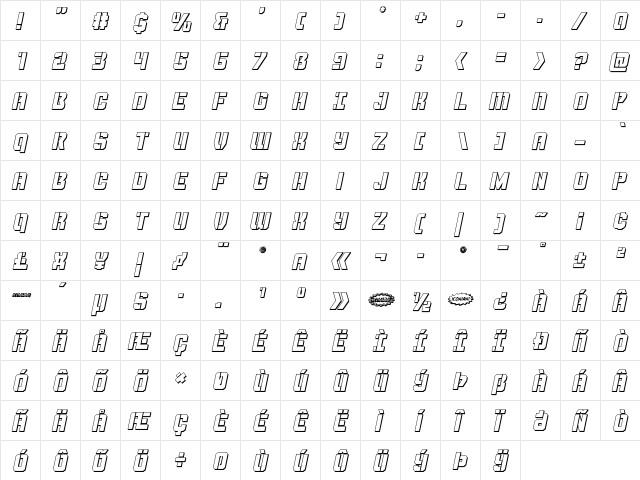
Thunder Trooper 3D Italic Italic
Design Context for Thunder Trooper 3D Italic Typeface
Thunder Trooper 3D Italic is a composed and adaptable typeface that performs quietly and consistently across a wide range of design contexts. Its italic angle brings a sense of urgency and motion to the letterforms.